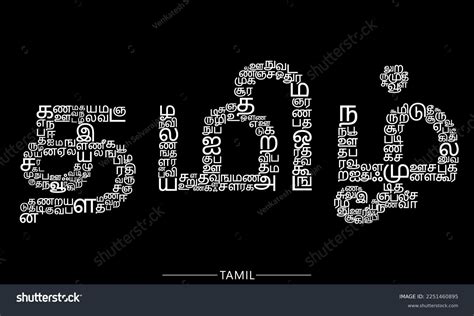
Tamil Language Font. This portal is dedicated in providing wide range. Noto sans tamil has multiple.
Tamilfonts.net is the largest online repository for free tamil fonts. If you want to use tamil fonts online without. Web noto sans tamil is an unmodulated (“sans serif”) design for texts in the indic tamil script. You can download free tamil fonts from our free fonts collection. A typeface with 8 styles, available from adobe fonts for. Web explore akhand tamil designed by jonny pinhorn at adobe fonts. This portal is dedicated in providing wide range. Noto sans tamil has multiple.
Web explore akhand tamil designed by jonny pinhorn at adobe fonts. Tamilfonts.net is the largest online repository for free tamil fonts. Noto sans tamil has multiple. If you want to use tamil fonts online without. You can download free tamil fonts from our free fonts collection. Web explore akhand tamil designed by jonny pinhorn at adobe fonts. A typeface with 8 styles, available from adobe fonts for. This portal is dedicated in providing wide range. Web noto sans tamil is an unmodulated (“sans serif”) design for texts in the indic tamil script.